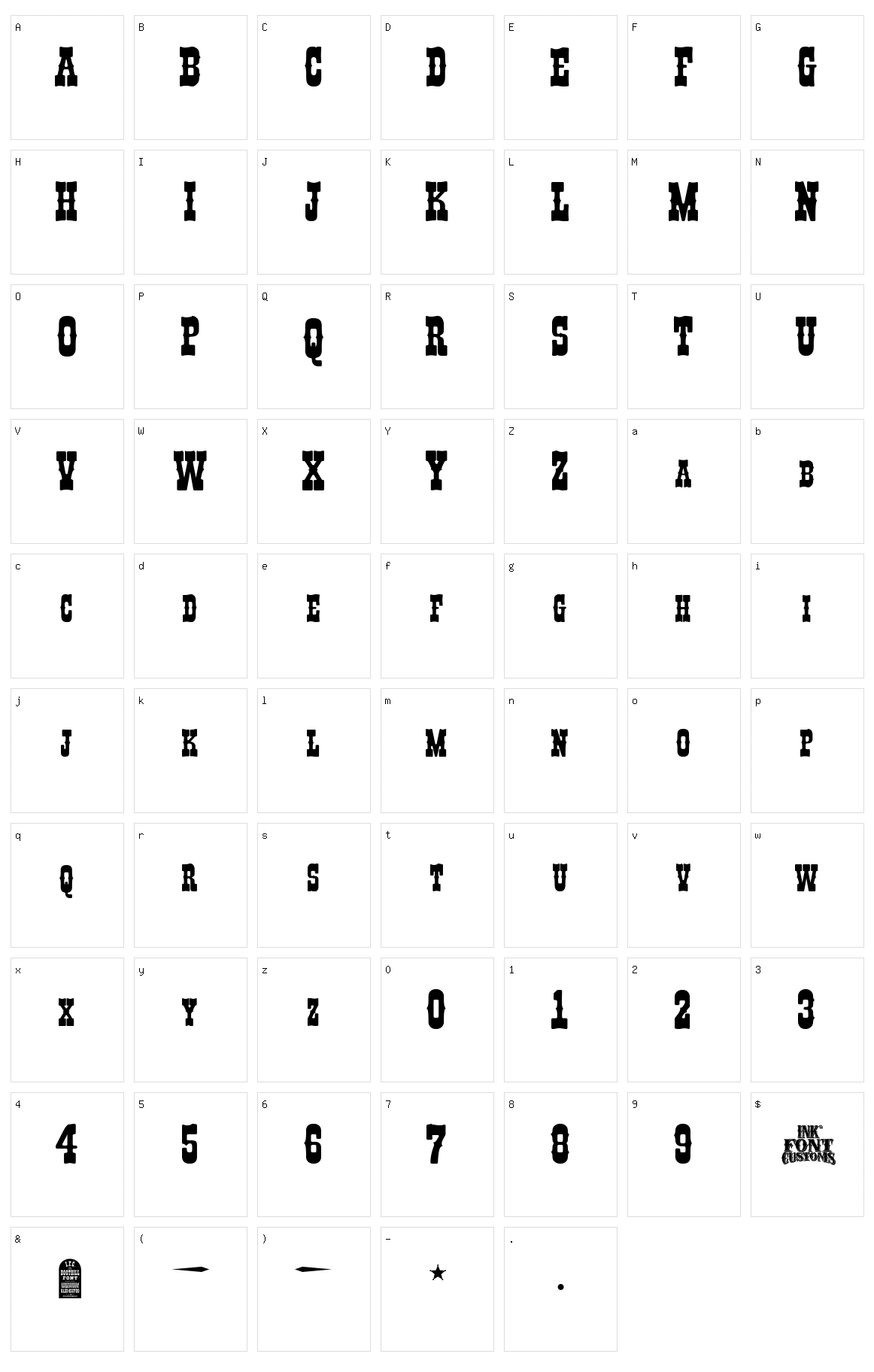
The free font IFC Boothill is carefully designed by Anton Krylov, showcasing a thoughtful balance of creativity and usability and falls under the Western font style. When you download the ZIP file, it contains only 200.69 KB of font files, making it lightweight and quick to download. Please review the license details below to understand permitted usage and distribution rights. If license information is not available, we recommend using this font for personal projects only or contacting the author directly for commercial usage permissions.
I.F.C. BOOTHILL Type